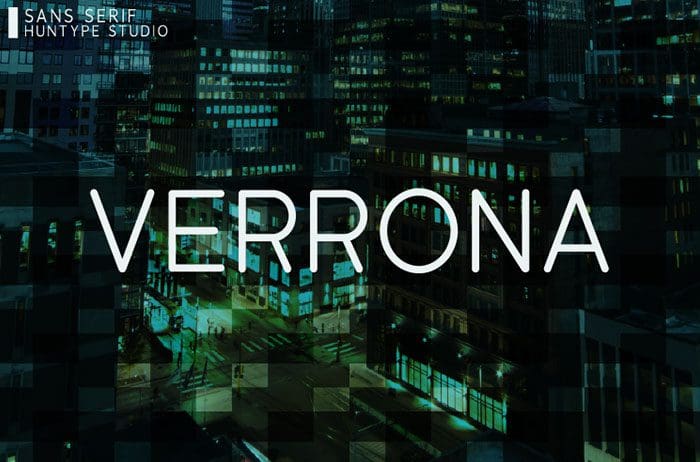
Verrona Sans Serif Font
Verrona is a sophisticated sans serif font. It will look particularly adept when used in logos, branding, packaging design, and much more. This masterfully designed font is a true must-have. Thanks to Mas Anis for sharing this font! Take a look at this portfolio for more of his stunning fonts.